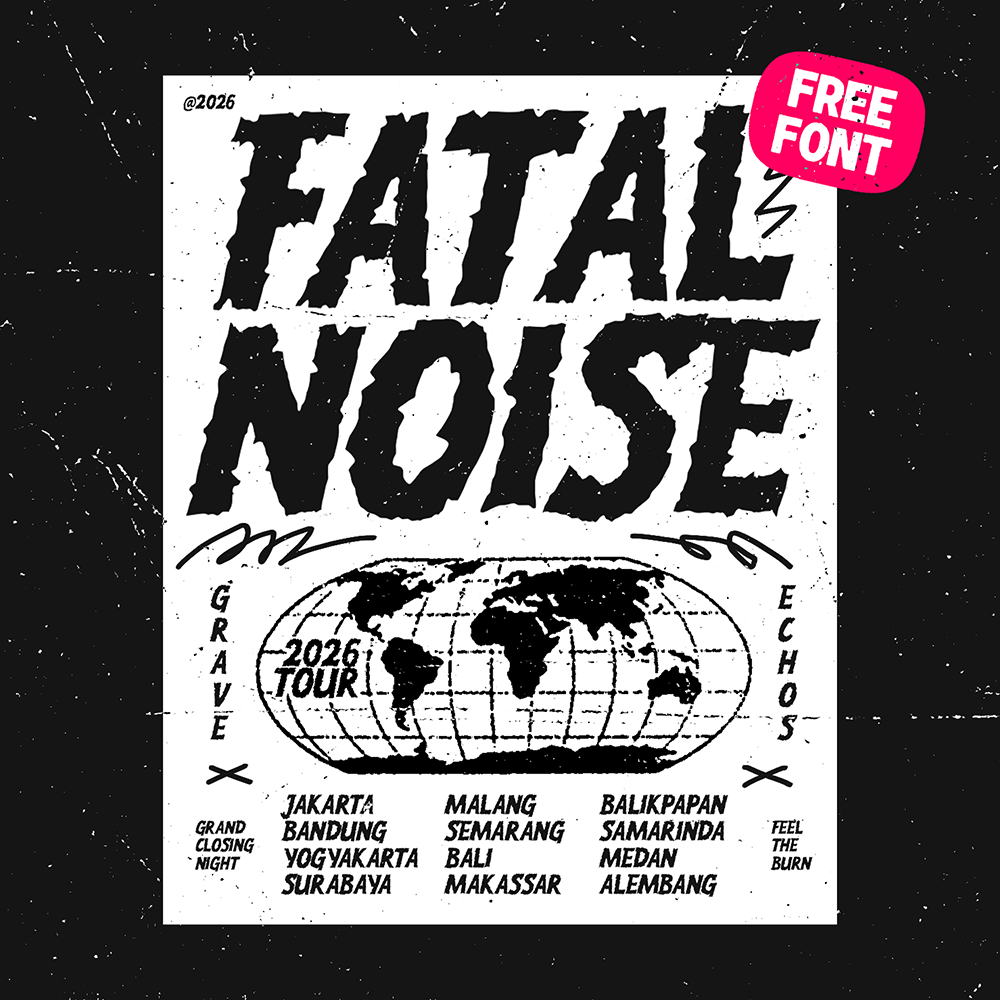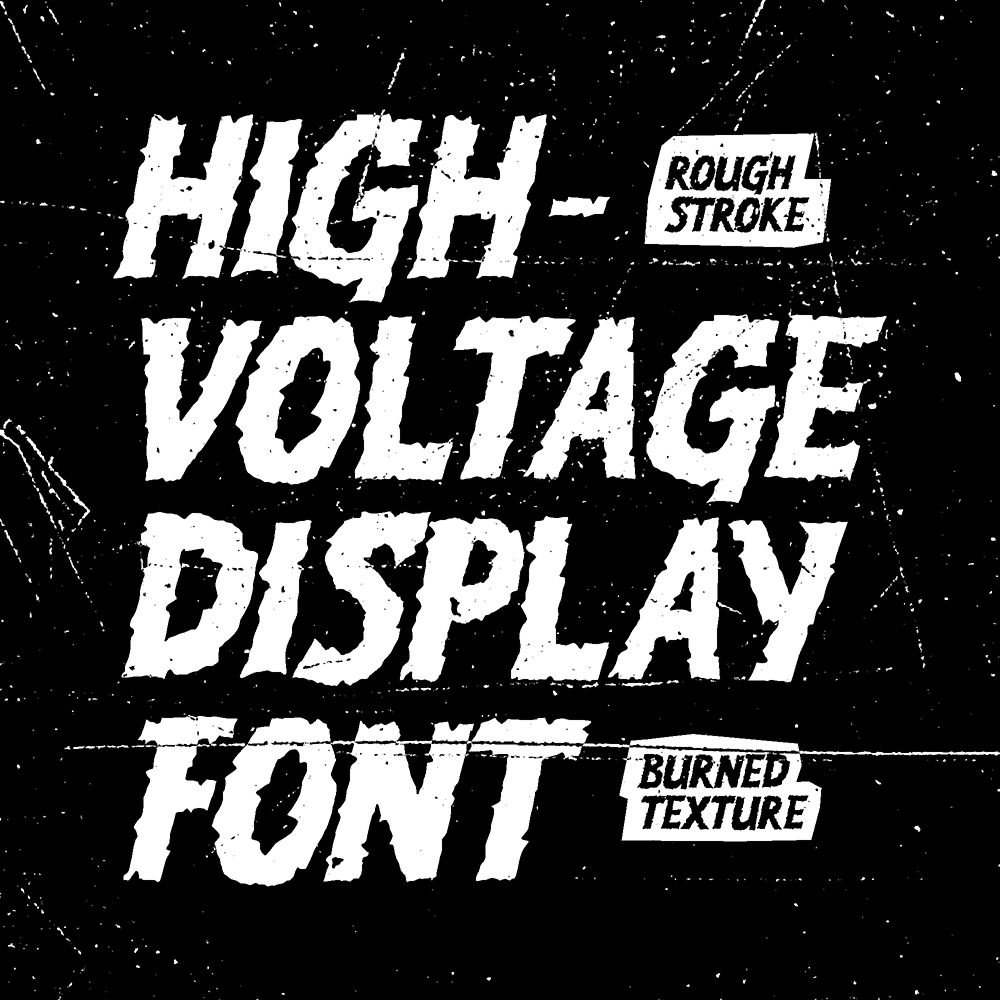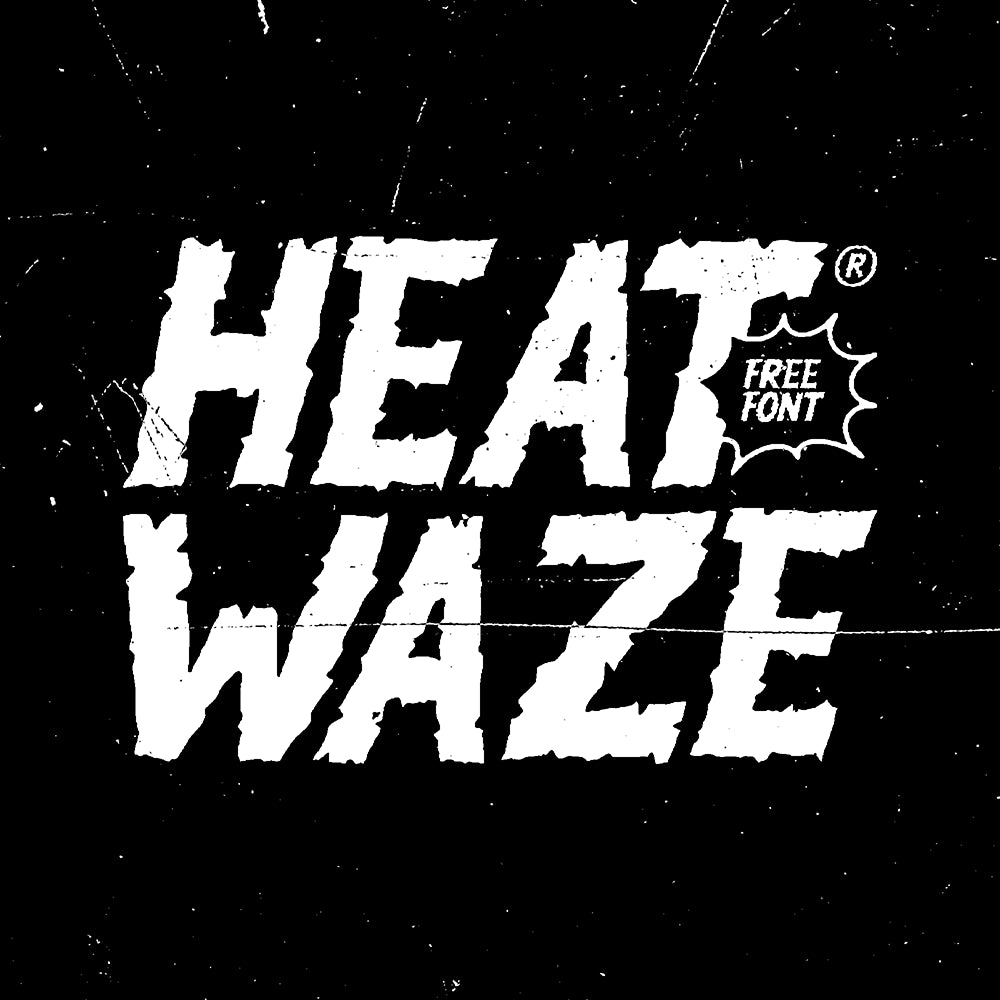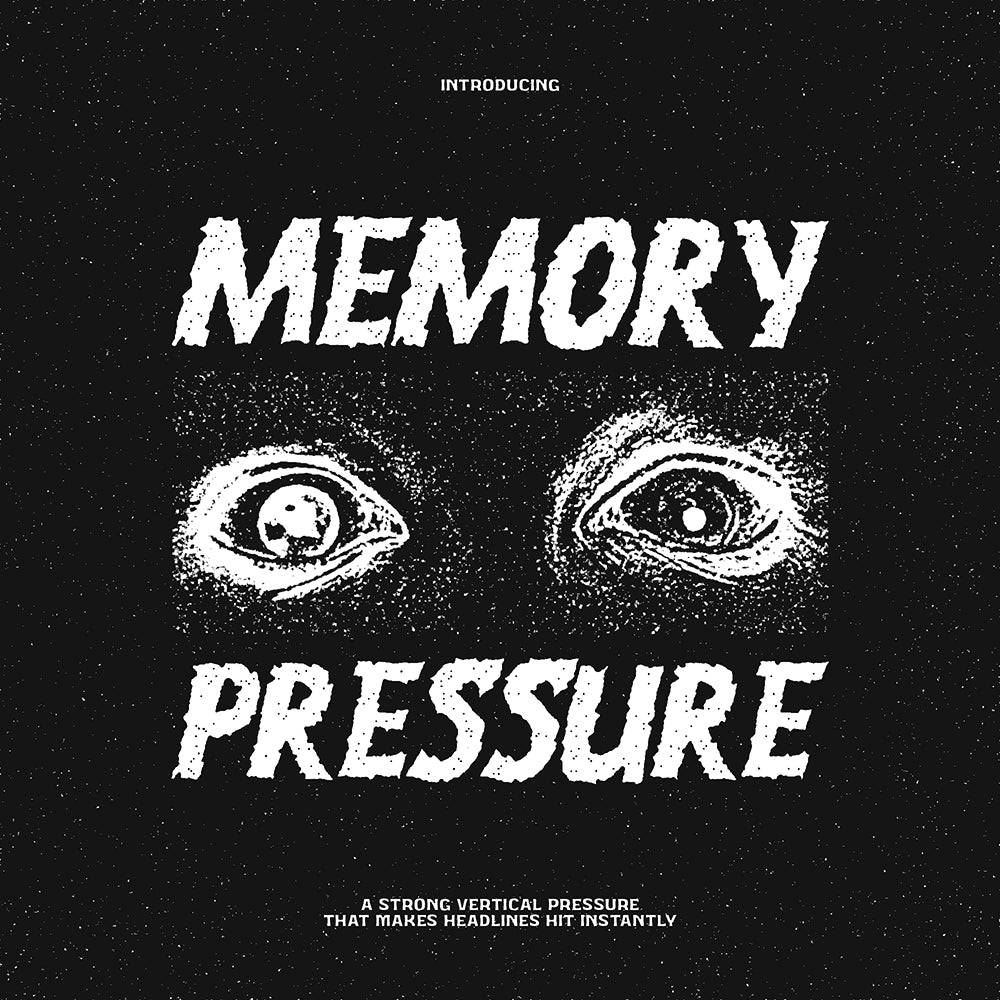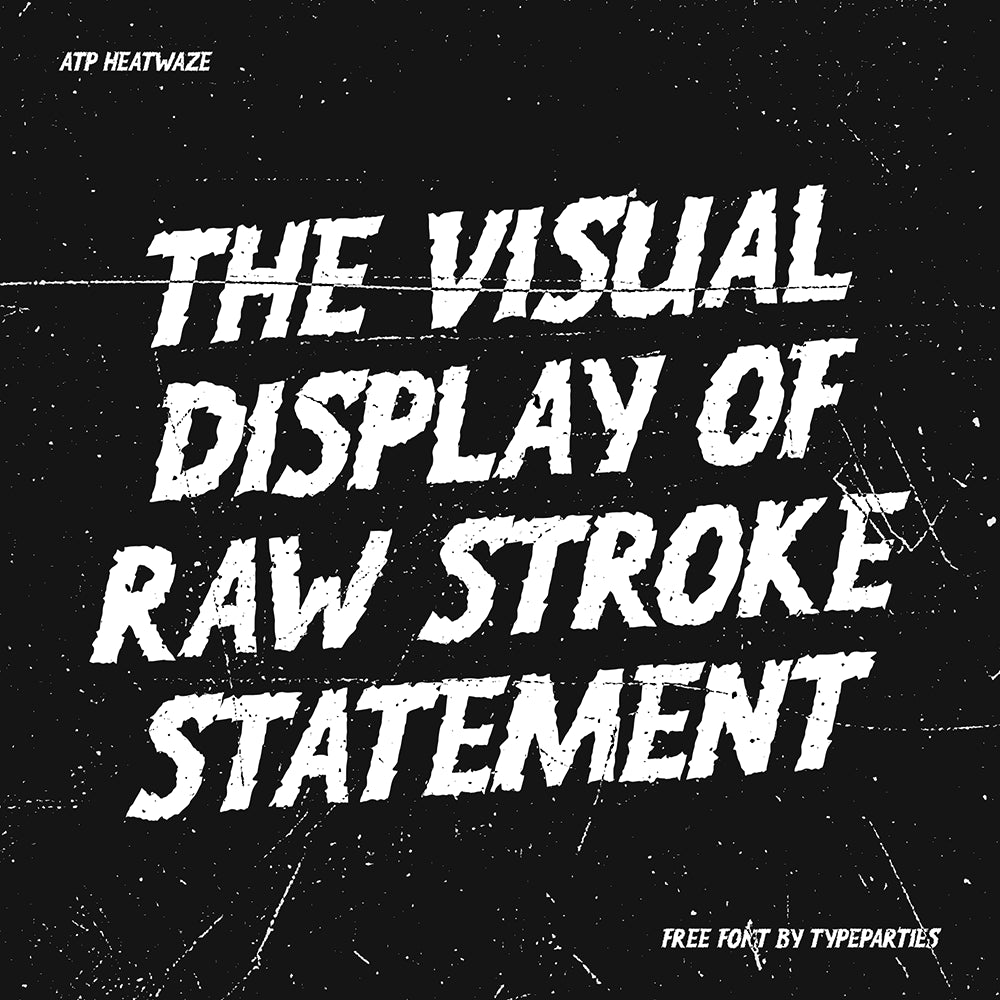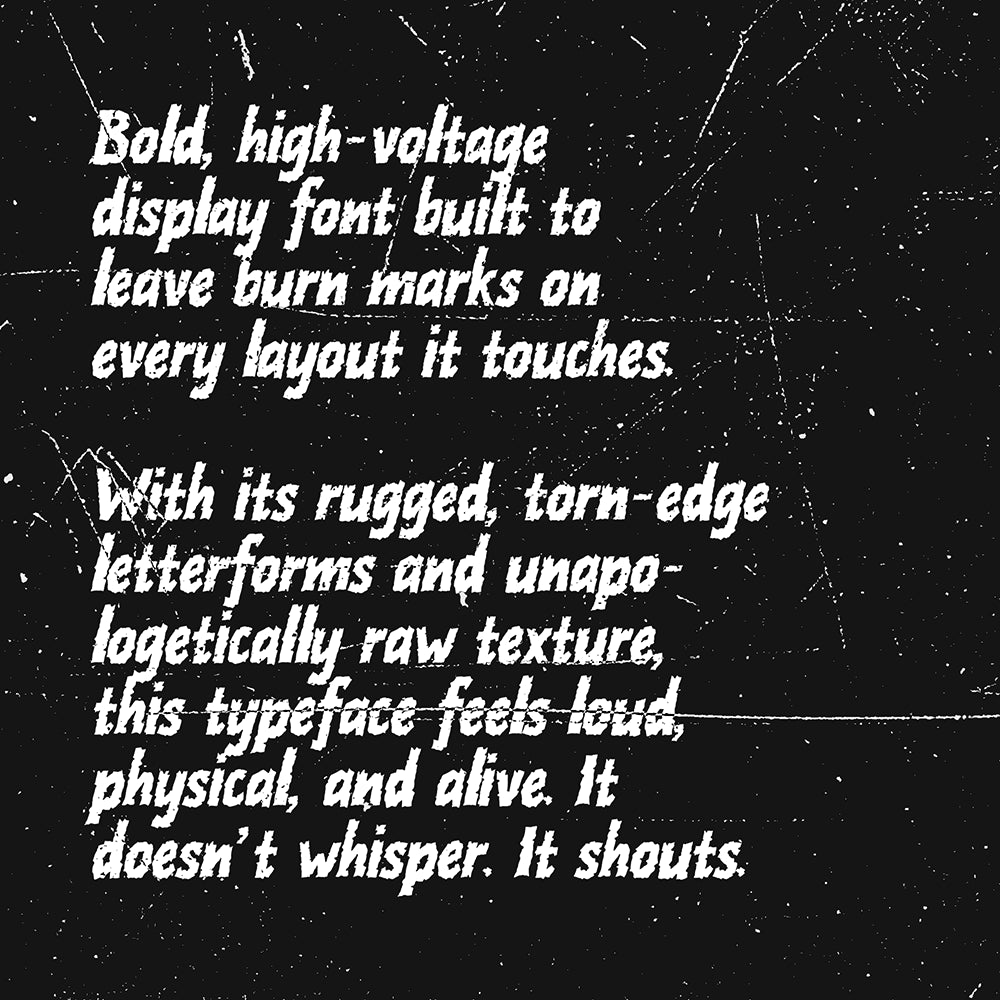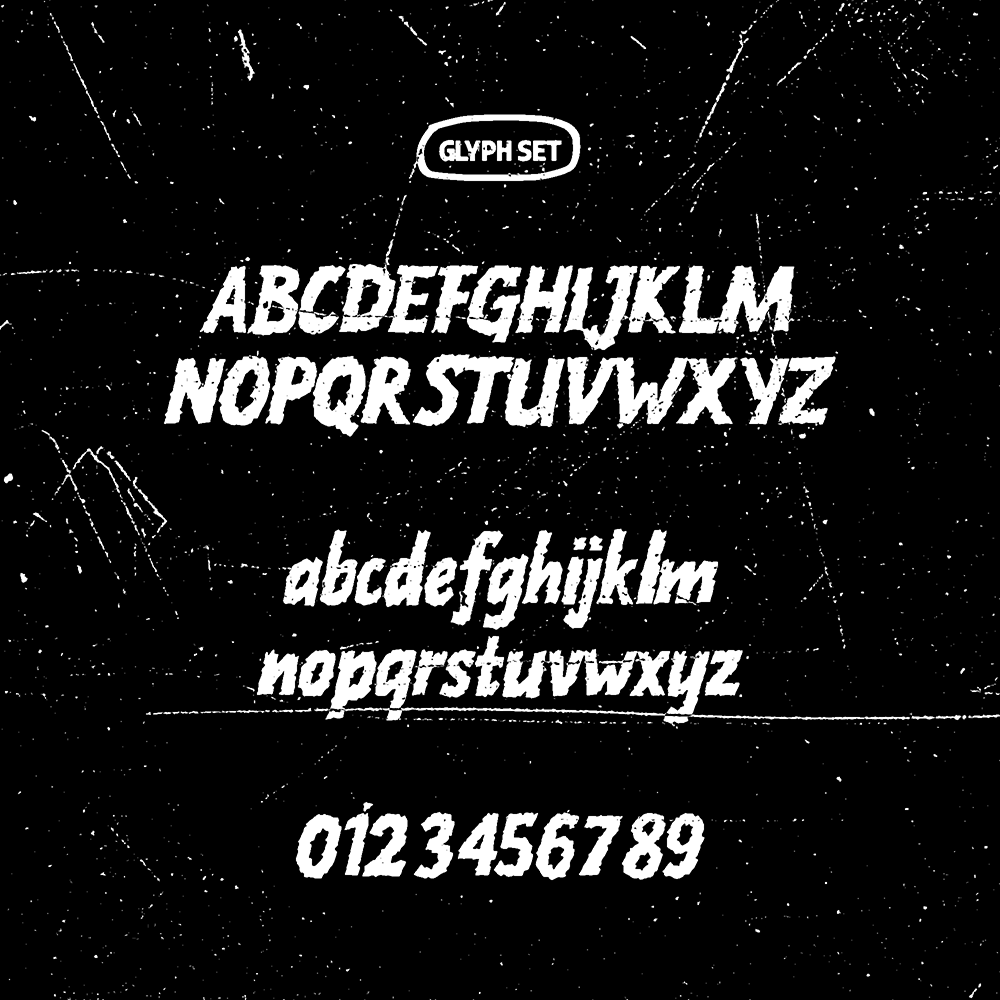
Heatwaze - Distressed Display Typeface
Heatwaze is a bold distressed display typeface designed for high-impact visual communication. Built with irregular contours, torn edges, and aggressive texture detailing, this font captures a raw, unfiltered aesthetic that feels intense and unapologetic.
The letterforms feature heavy stroke weight with a compact, slightly condensed structure, creating strong vertical tension and maximum headline presence. The uneven outlines and organic distortion give the typeface a handcrafted, weathered character, making every word feel dynamic and alive.
Font Features
Uppercase & lowercase
Numerals & punctuation
Multilingual support
Heatwaze is a bold distressed display typeface featuring irregular contours, torn edges, and a heavy stroke weight for impactful visual communication. It includes uppercase and lowercase letters, numerals, punctuation, and multilingual support, making it suitable for various design applications.